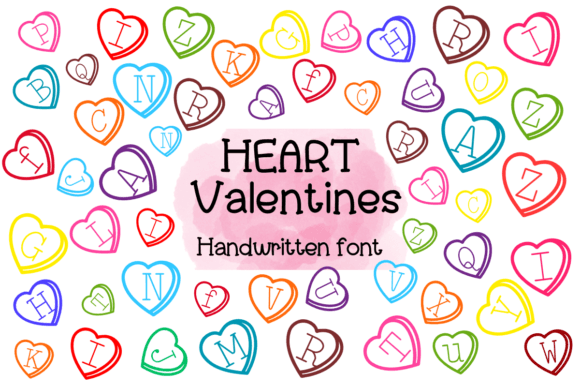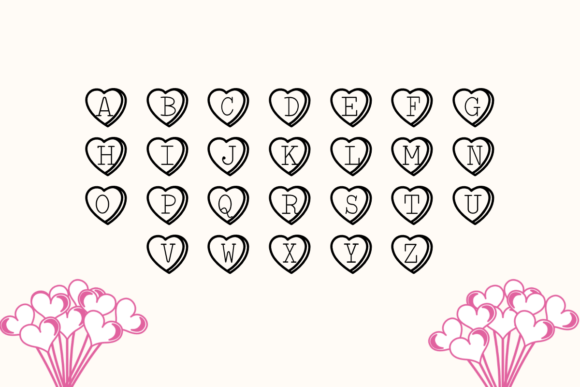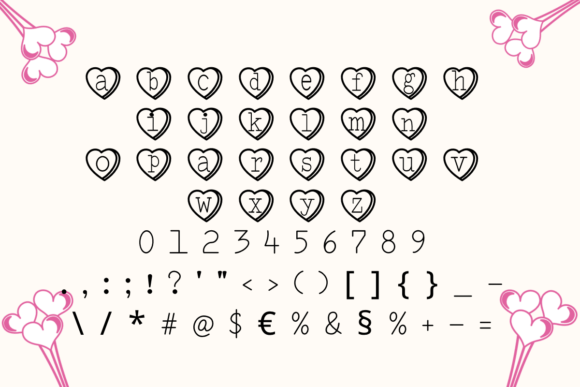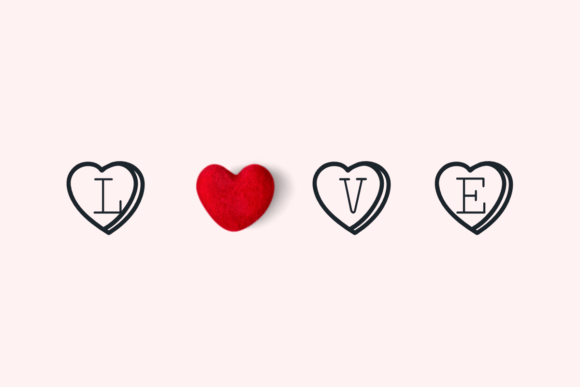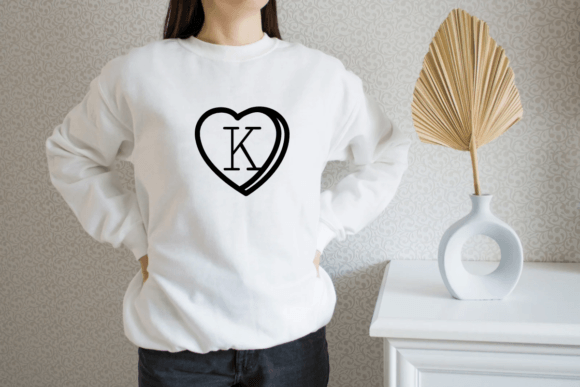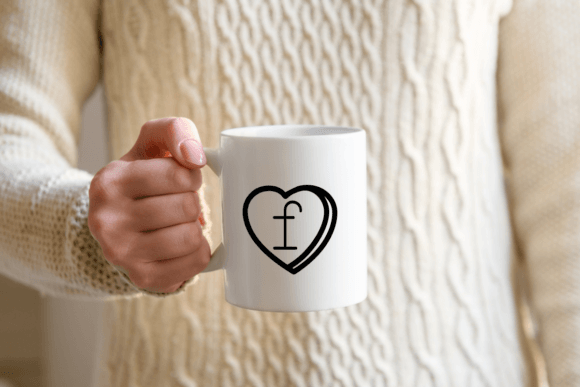
Adding a Touch of Love to Your Designs
Have you ever sat down with a blank sheet of paper, a pen, and a spark of creativity? That’s exactly where the magic begins. As designers, we’re always on the lookout for the perfect font to bring our ideas to life. And that’s where Heart Valentines Font comes in – a beautiful, handwritten font that’s perfect for adding a touch of love and warmth to your designs.
Whether you’re writing a heartfelt letter, creating a Valentine’s Day card, or simply jotting down notes, Heart Valentines Font is the perfect companion. But its versatility doesn’t stop there. This font can be used for a wide range of designs, from social media posts to mugs, shirts, and stationery. As a designer, you’ll appreciate the value of Heart Valentines Font in bringing a personal touch to your work.
Key Features of Heart Valentines Font
- Font Styles: The Heart Valentines Font comes in 6 different font styles, including Regular, Bold, Italic, Bold Italic, Outline, and Shadow, to cater to various design needs.
- Unique Characteristics: The Heart Valentines Font features intricate, hand-drawn designs, with ornate details and elegant curves, making it perfect for romantic and festive designs.
Review: Heart Valentines Font
First off, I want to say that I love the idea behind Heart Valentines Font. It’s a beautiful, hand-drawn font that’s perfect for Valentine’s Day or any other occasion that calls for a touch of love. ✨ The unique, whimsical style of the font is sure to capture attention and add a romantic feel to any design.
- The font is highly customizable, with a wide range of styles and sizes to choose from.
- The hand-drawn look gives the font a personal, human touch that’s hard to find in more generic fonts.
- The font includes a variety of characters, including punctuation and numbers, making it easy to use in a variety of contexts.
- The font may not be suitable for large blocks of text, as the hand-drawn style can become difficult to read at smaller sizes.
- The font is not as versatile as some other fonts, and may not be suitable for all types of projects.
Overall, I think Heart Valentines Font is a great choice for designers looking to add a touch of romance to their designs. While it may have some limitations, the unique style and high level of customization make it a great option for Valentine’s Day or other special occasions.
Some tips for getting the most out of the Heart Valentines Font include using it for romantic designs, wedding invitations, and Valentine’s Day-themed projects. You can also experiment with different font sizes and colors to create a unique and eye-catching design.